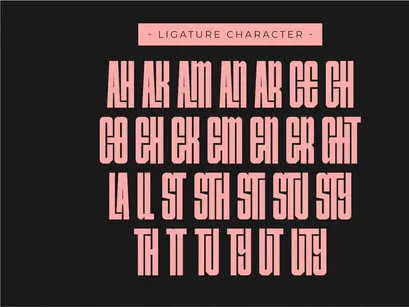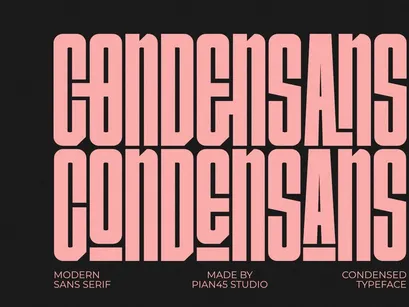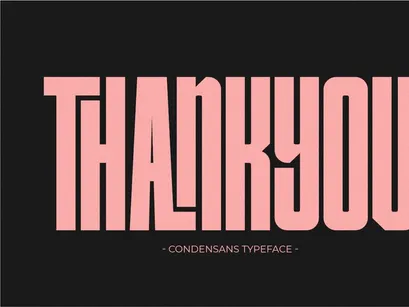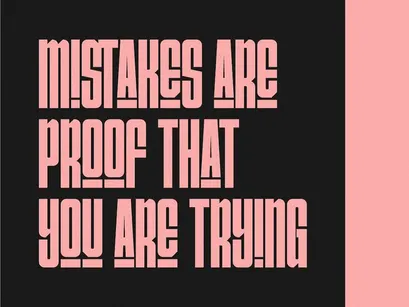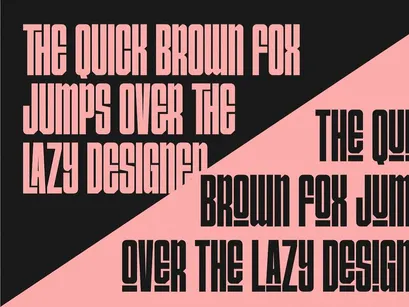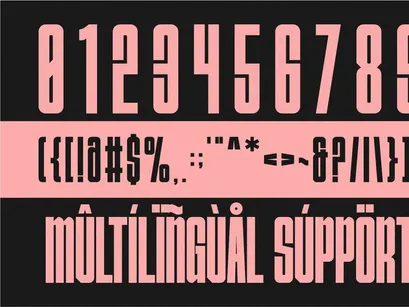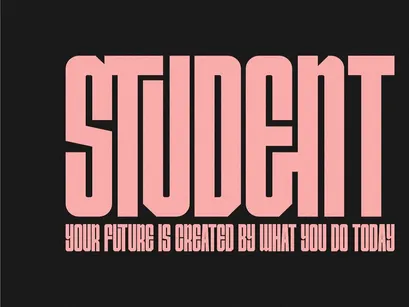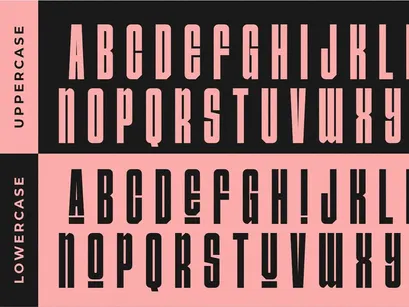
Condensans - Condensed Sans Serif Font
Condensans
Condensans is a sleek and high-impact Modern Condensed Sans Serif font engineered for maximum visibility and professional aesthetics. This ultra-condensed typeface features clean, elongated lines and a bold, blocky structure, making it the definitive choice for minimalist branding, corporate identity, industrial posters, and architectural headlines. With its space-saving geometry and commanding vertical presence, this all-caps font ensures your message remains sharp, authoritative, and sophisticated across high-end apparel, digital media, and modern editorial layouts.